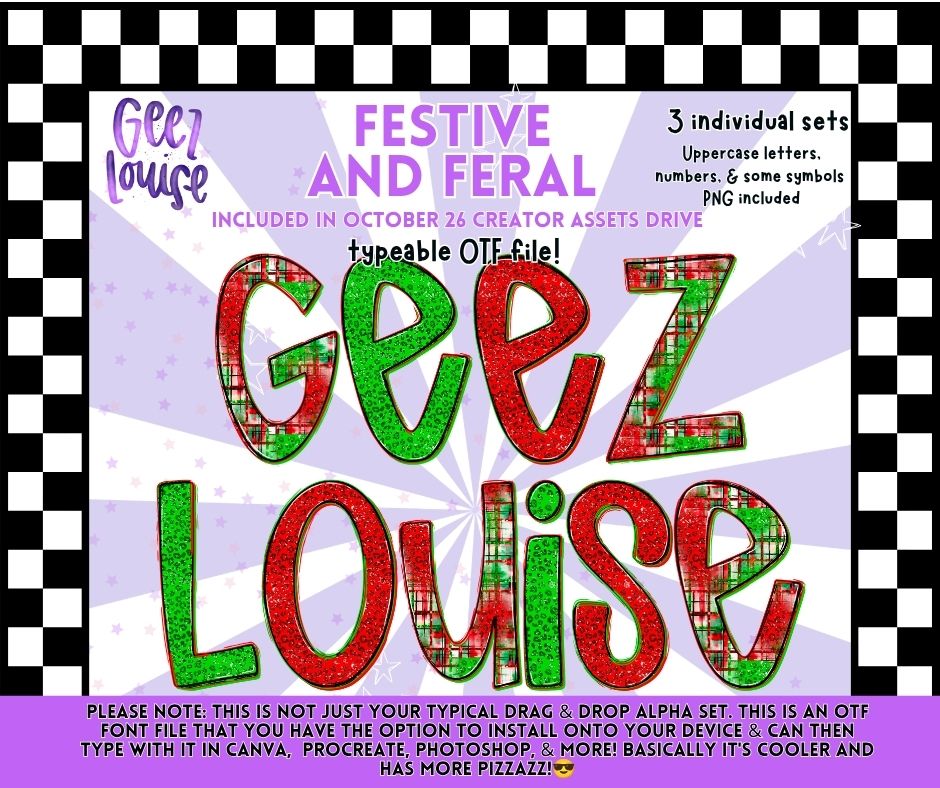
Festive and Feral Christmas Alpha Bundle | 3 OTF Fonts + PNG Alphabets
A bold Christmas alpha bundle featuring 3 festive patterns in classic red, green, and holiday plaid. Includes 3 typeable OTF fonts plus uppercase letters, numbers, and select symbols as individual PNG files. 🎄🔥